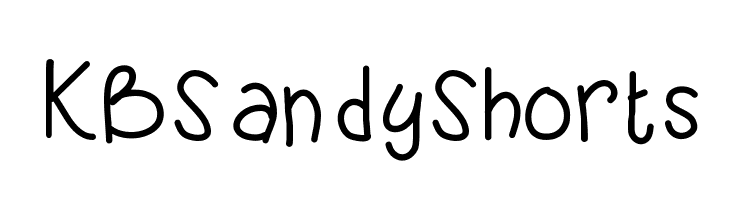
A modern, geometric font with clean lines and uniform stroke widths.
A decorative, hand-drawn font with swirling lines and sharp edges.
A bold, distressed font with a grunge, vintage style.
A bold, italicized font with sharp, jagged edges ideal for horror themes.
A bold, dot-based font with a digital, pixelated style.
A rough, textured font with a handcrafted, vintage feel.
A bold, three-dimensional serif font with pronounced shadows.
A playful, casual handwritten font with smooth, flowing lines.